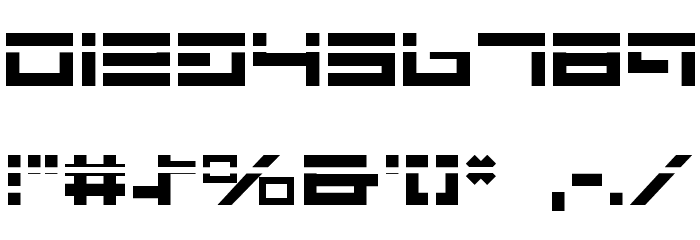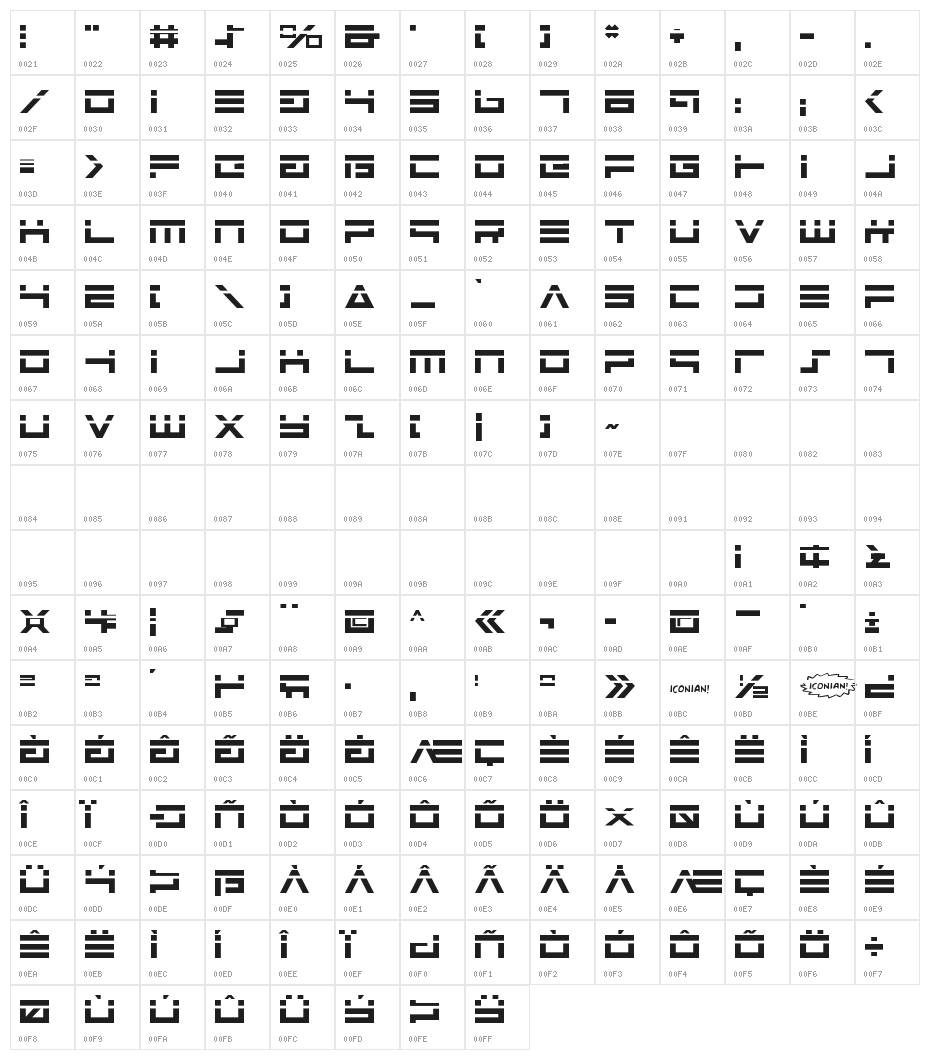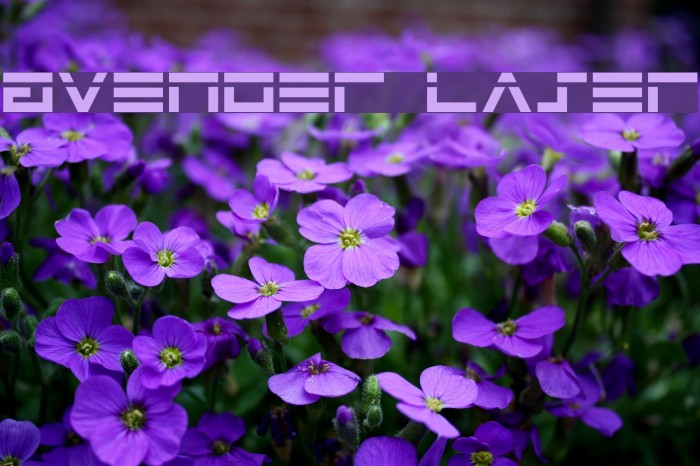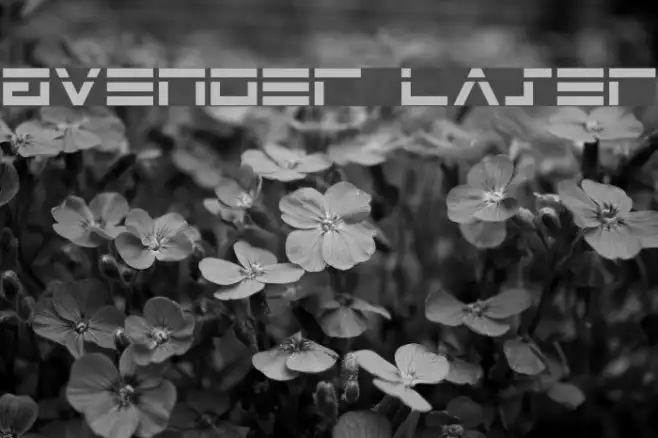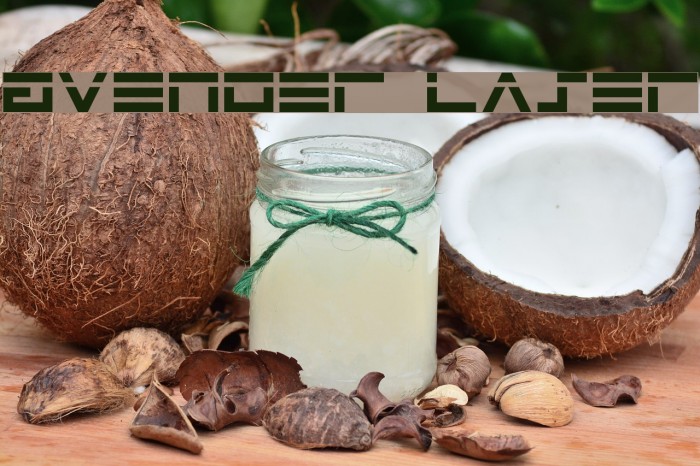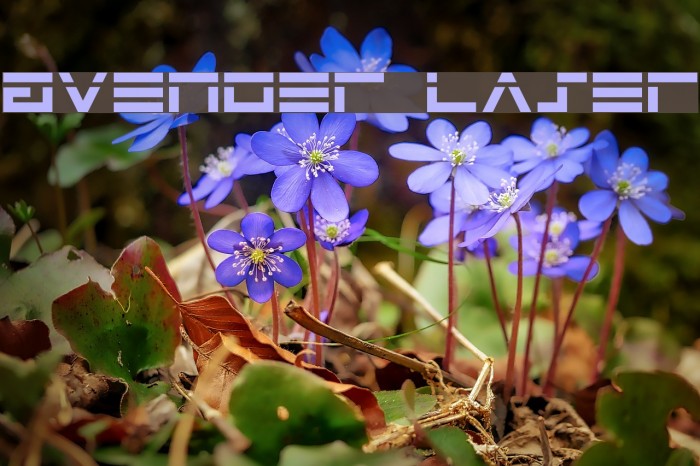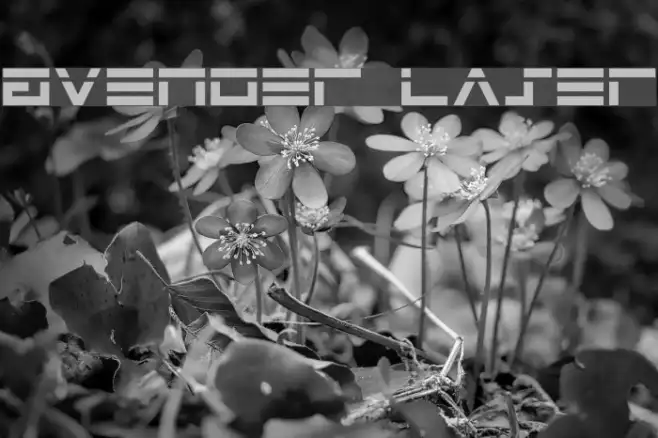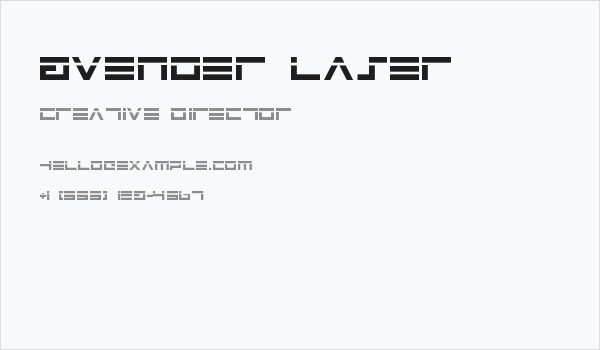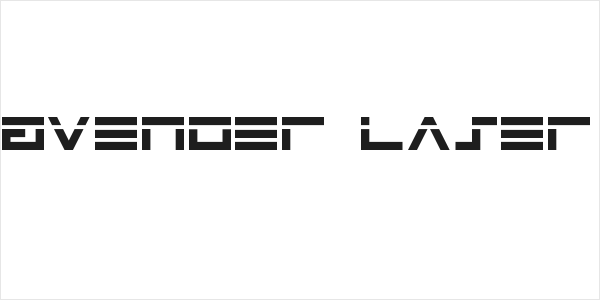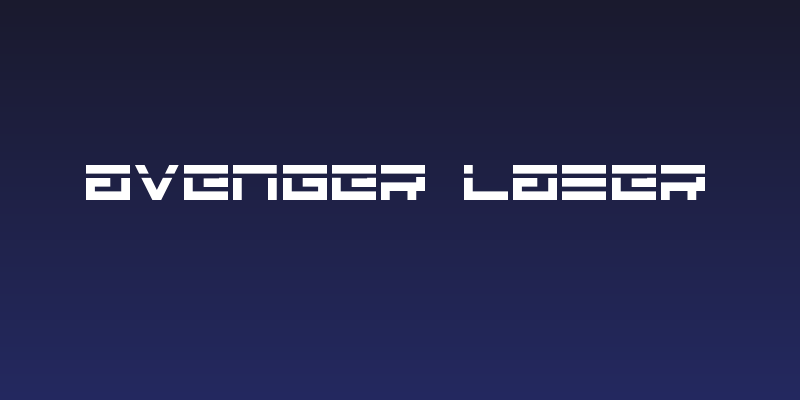
Avenger Laser Font
Avenger Laser Description
This font showcases a futuristic and geometric design, characterized by its blocky and angular letterforms. Each character is composed of bold, straight lines with sharp angles, giving it a distinctly modern and digital appearance. The uppercase and lowercase letters maintain a consistent style, with a uniform height and width that emphasizes its monospaced nature. The numbers and special characters follow the same design principles, ensuring a cohesive look across all glyphs. The font's unique style makes it ideal for projects that require a tech-savvy or sci-fi aesthetic.
Overall StyleFuturistic
Proposed ProjectsIdeal for sci-fi themed designs, tech branding, video game interfaces, and futuristic posters.